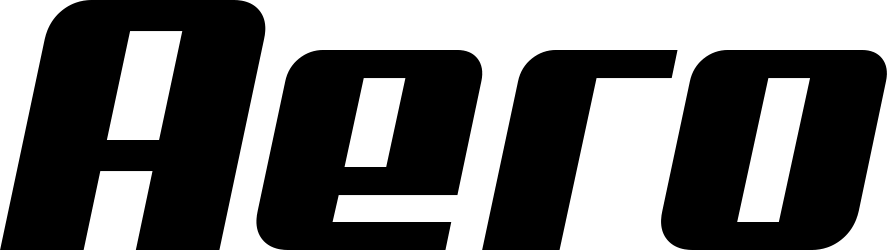
Aero Font
The Aero font by being in the category of sci-fi, and futuristic has attracted attention along with it. This slanted bold font has rounded and smooth edge characters. You can use this techno font in many informal designs…
Designed byPicatype Design Studio
The Aero font by being in the category of sci-fi, and futuristic has attracted attention along with it. This slanted bold font has rounded and smooth edge characters.
You can use this techno font in many informal designs, science fiction movie titles, car brands, car magazines, and many more.